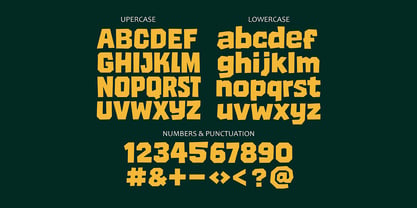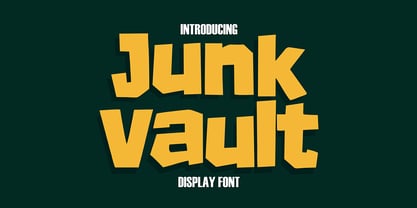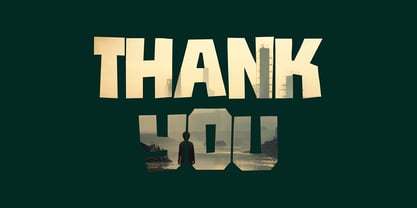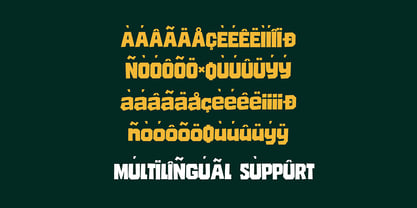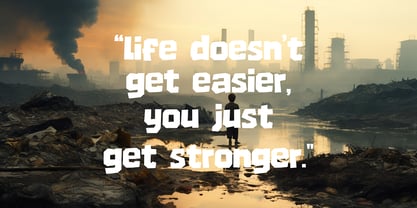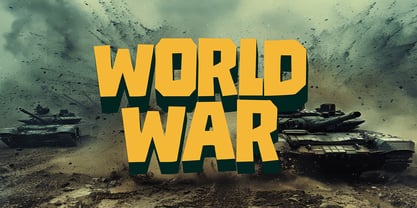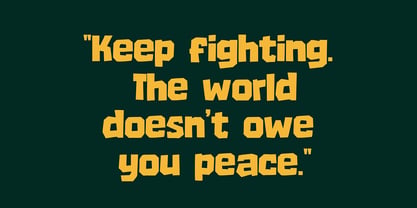
Junk Vault
by Sipanji21
The Junk Vault Font Family was designed by Sipanji and published by Sipanji21. Junk Vault contains 1 styles. More about this family
Junk Vault is a bold and chunky display font built to make a statement. With its irregular geometry and strong presence, this font injects a handmade, urban vibe into any design project. It’s ideal for bold titles, poster layouts, retro-inspired branding, children’s content, merchandise, or any creative visual that demands attention.
Crafted with a mix of playfulness and strength, Junk Vault stands out with its distinctive charm. The font has been designed with usability in mind, featuring balanced letter spacing and full character support including uppercase, lowercase, numerals, punctuation, and extended multilingual glyphs. Whether used on physical prints or digital platforms, this typeface maintains clarity and uniqueness.
Designers: Sipanji
Foundry: Sipanji21